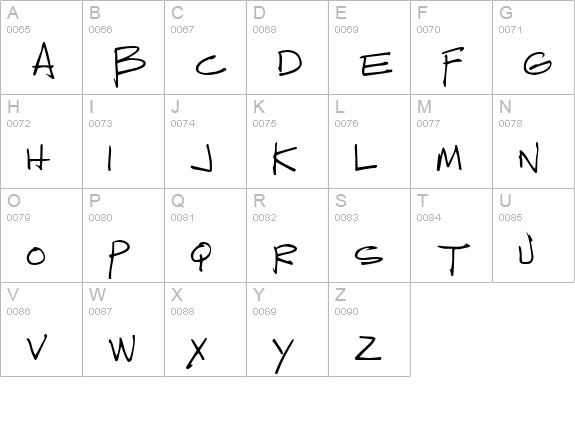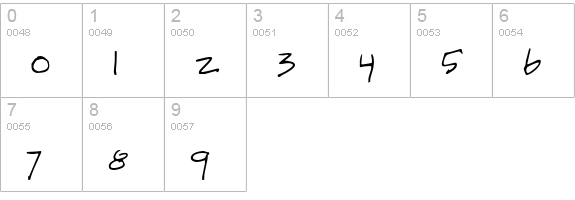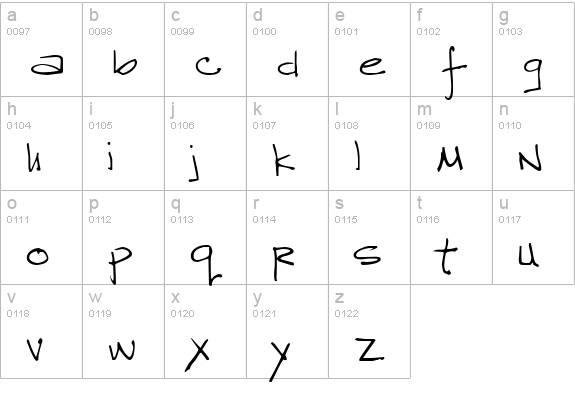
Reprobate Font Details
Reprobate font is a bold and edgy typeface that exudes a rebellious spirit. With its jagged lines and sharp angles, this font is perfect for designs that demand attention and make a bold statement. Reprobate font is ideal for posters, album covers, and branding projects that require a touch of attitude. Designed with versatility in mind, Reprobate font offers a range of weights and styles to suit any design need. Whether you're going for a gritty and grungy look or a sleek and modern aesthetic, this font has got you covered. One of the best things about Reprobate font is that it is free to download at FontsMarket.com. This means that you can add this unique and eye-catching font to your collection without spending a dime. So, if you're looking to add a touch of rebelliousness to your designs, look no further than Reprobate font, freely available at FontsMarket.com.